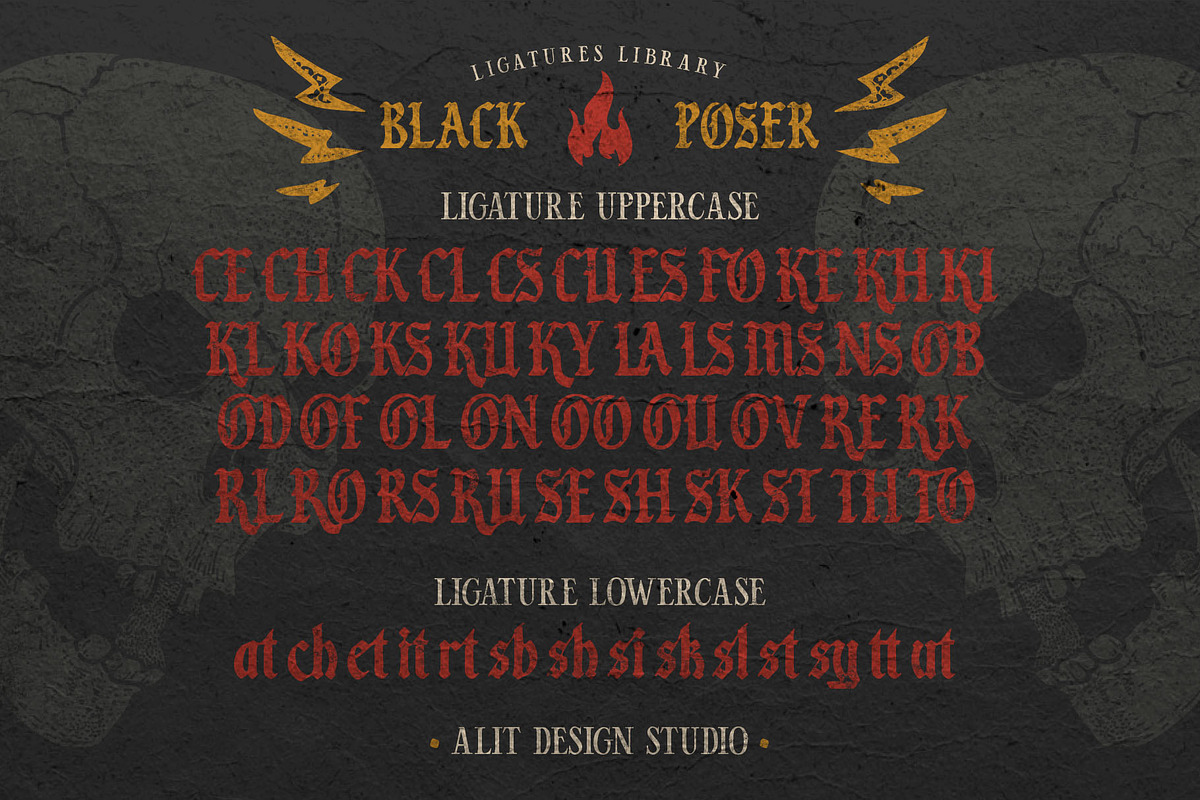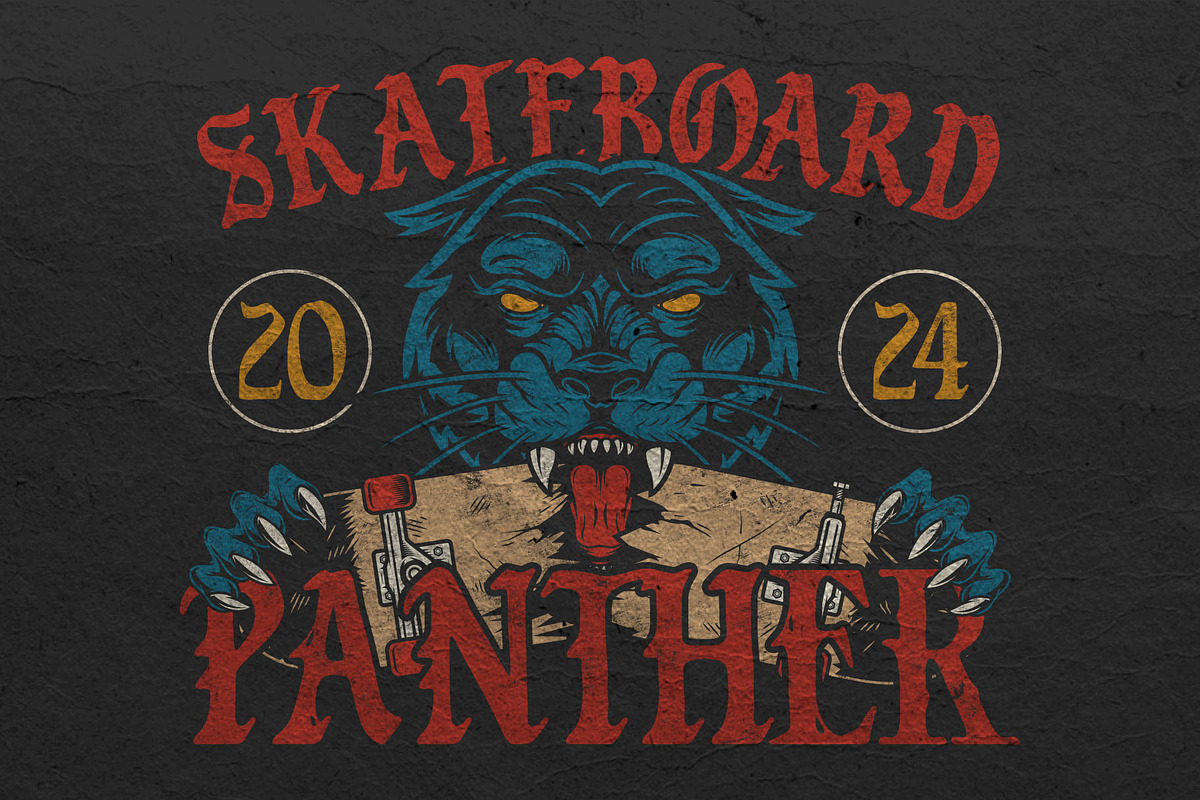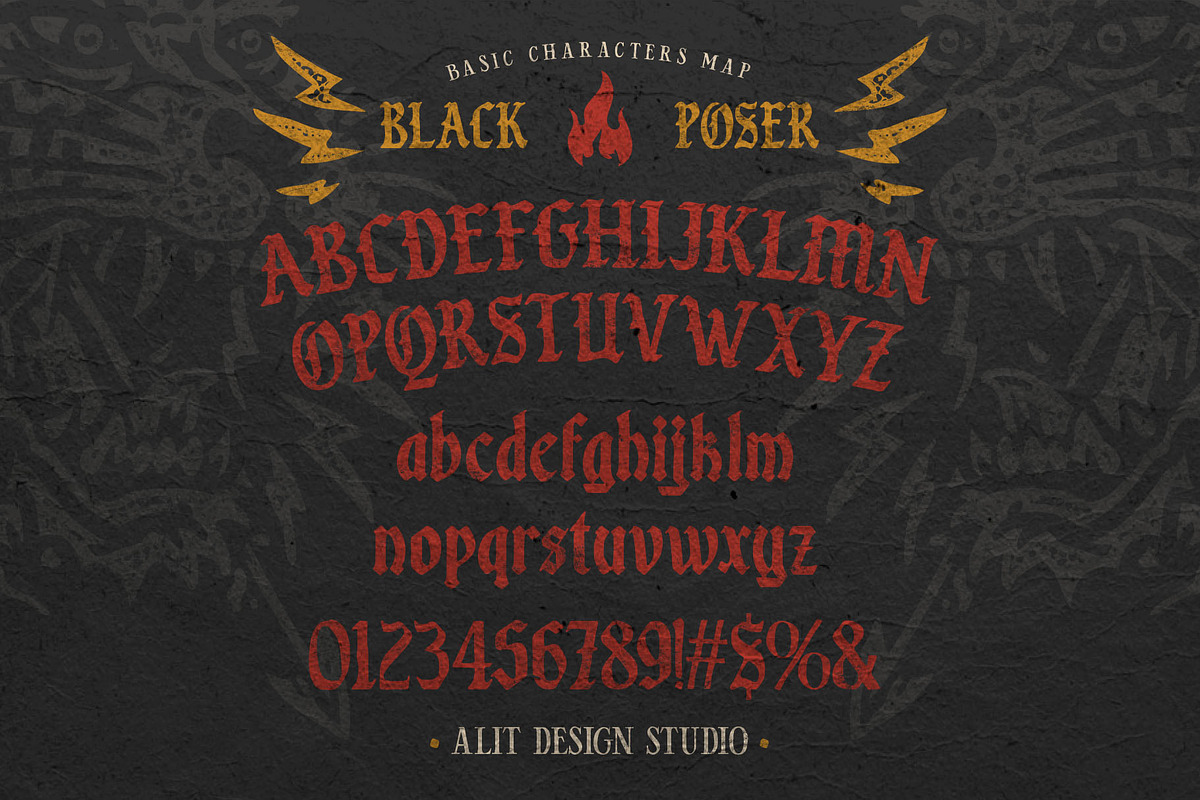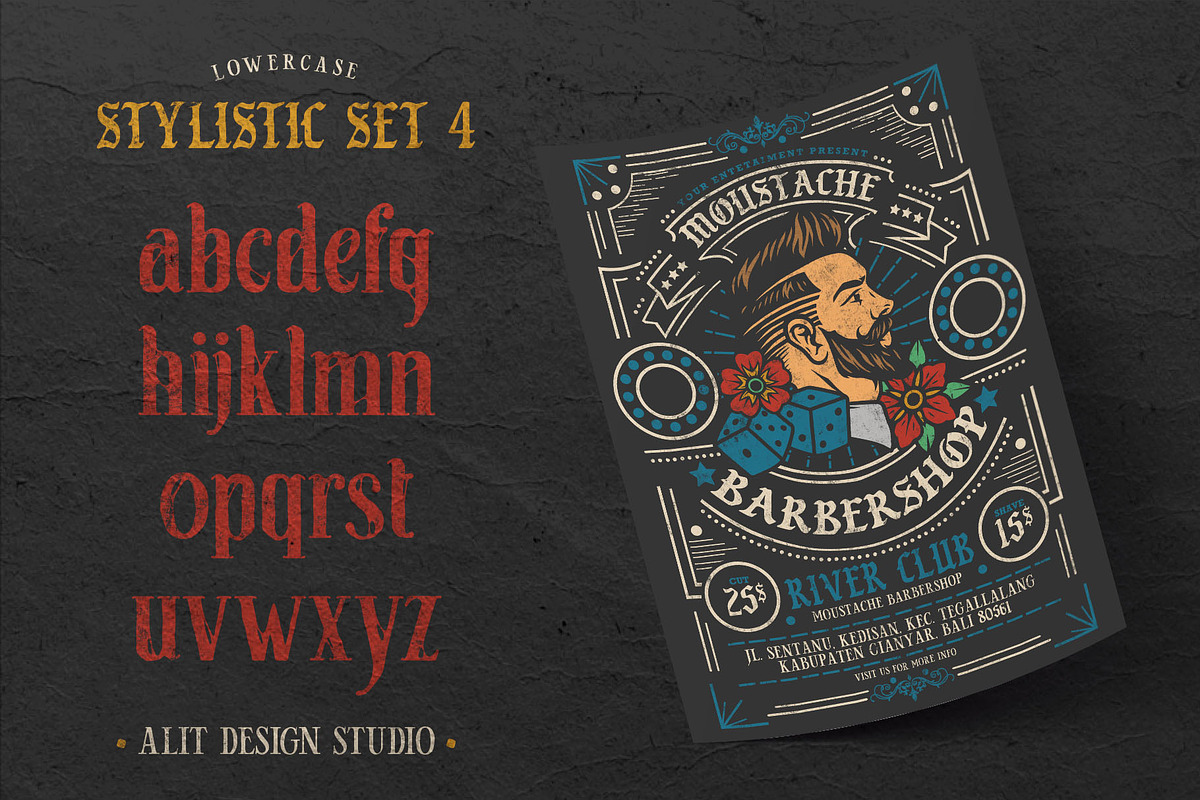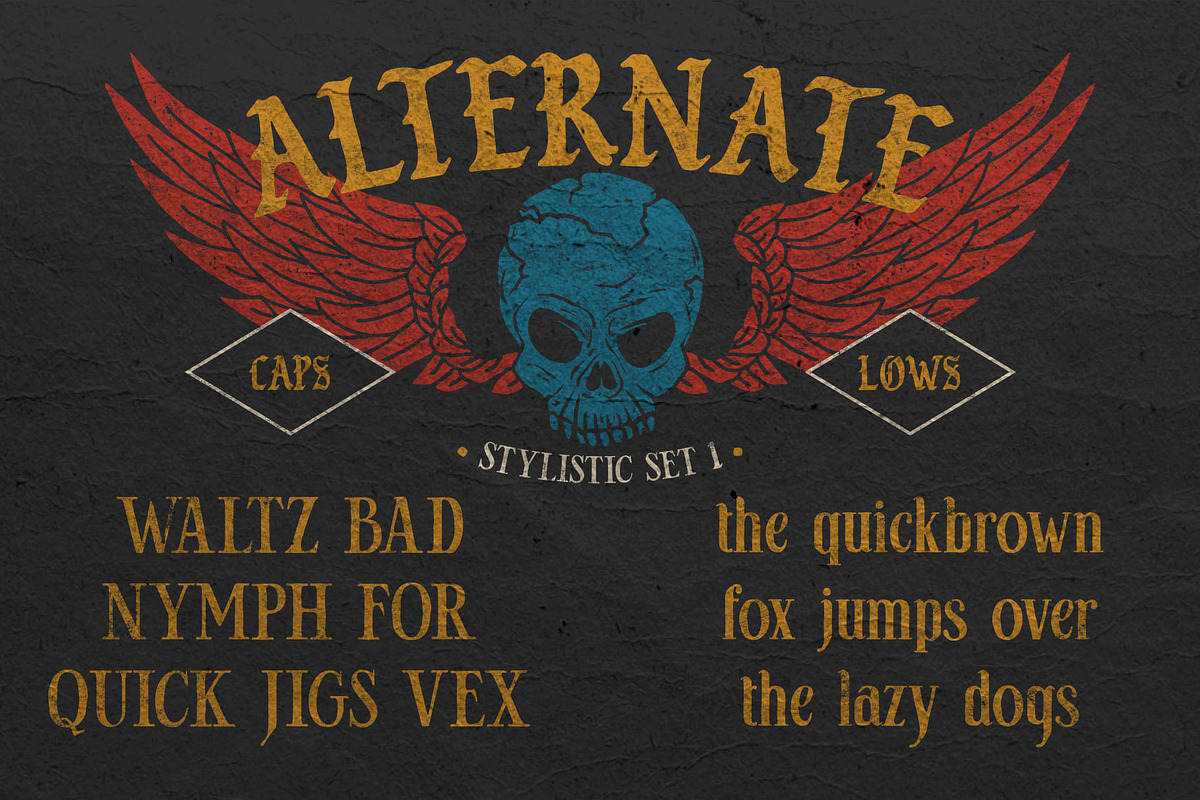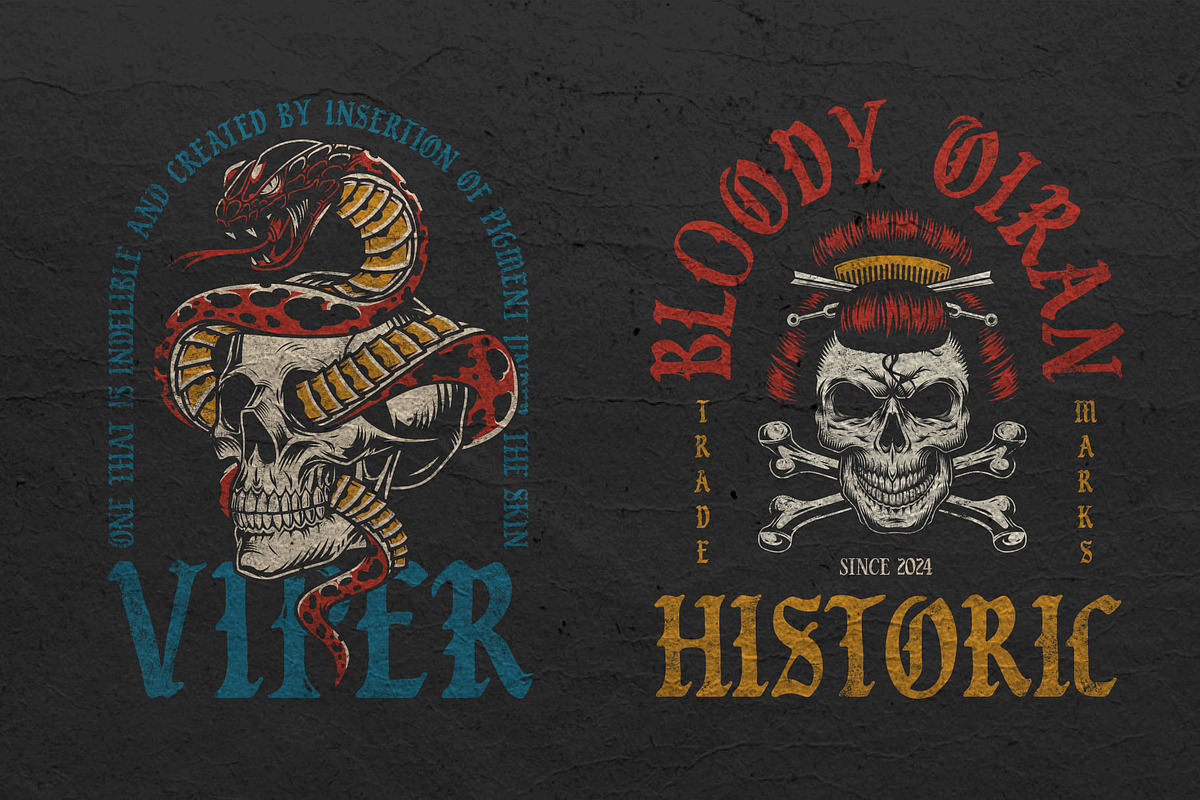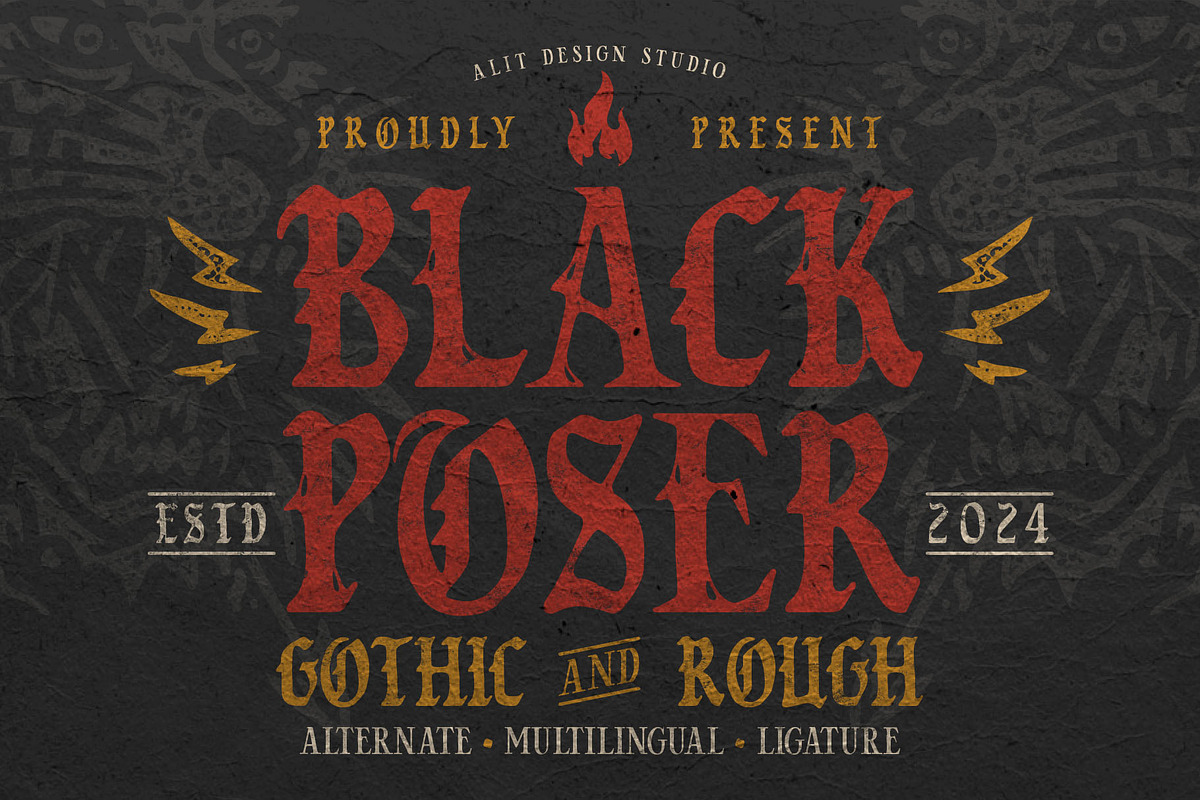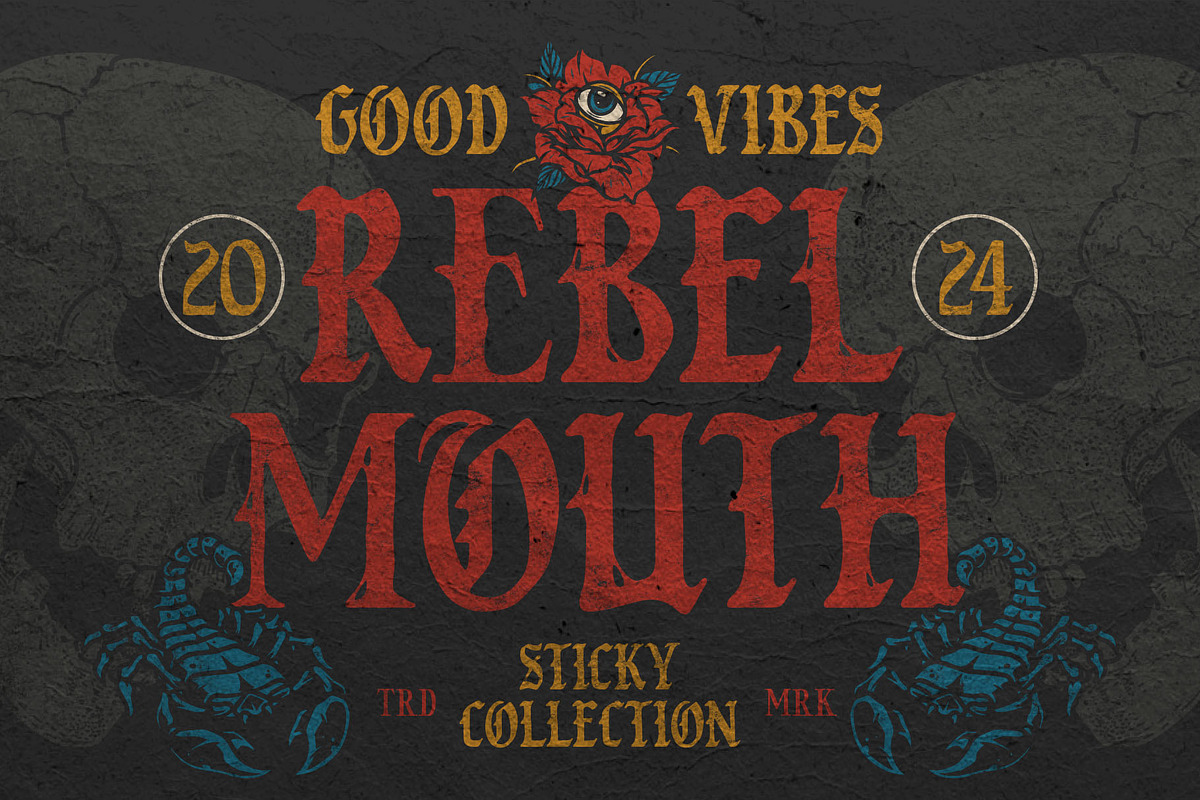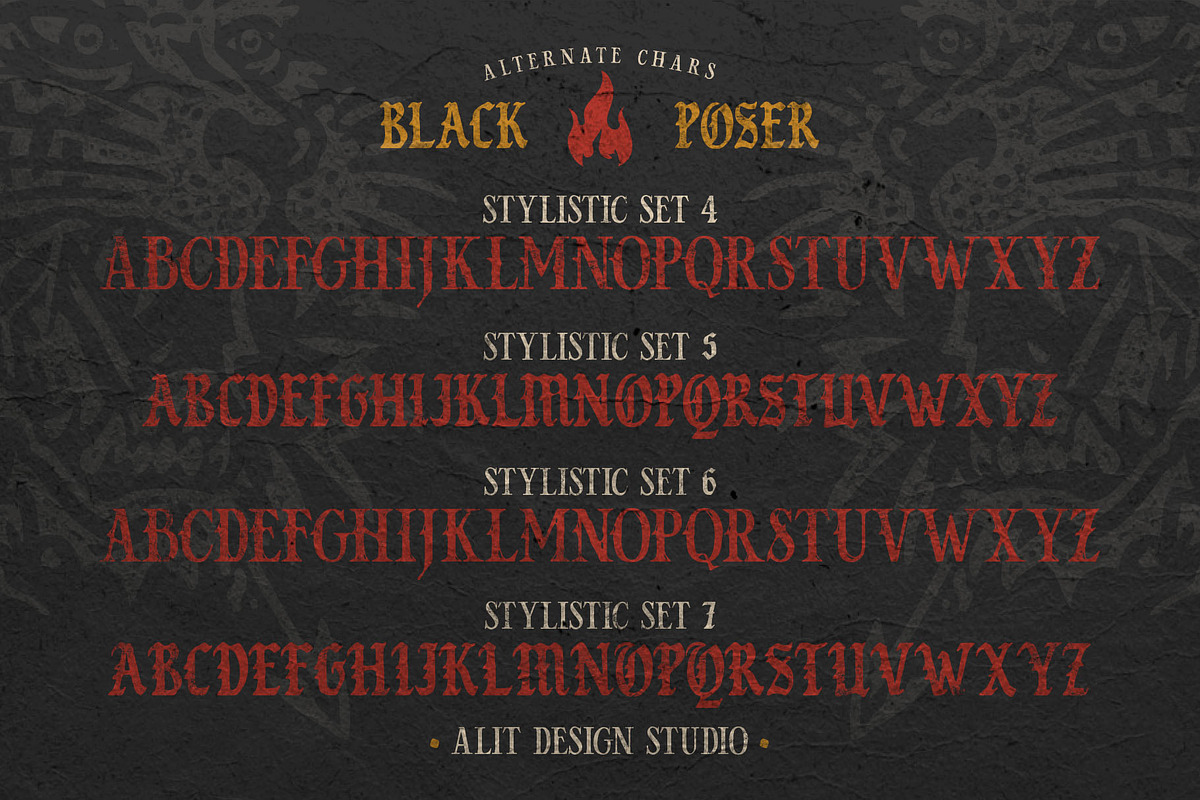
Black Poser Blackletter Typeface
The "Black Poser Blackletter Typeface" is a bold, vintage-inspired font that embodies the traditional essence of blackletter typefaces while adding a modern, rough edge. This typeface features 813 meticulously crafted glyphs, offering a wide range of characters and symbols for versatile design needs.
The font is characterized by its sharp, angular lines and intricate details, capturing the essence of medieval manuscripts with a touch of contemporary grittiness. It includes a variety of alternates, ligatures, and swashes, providing designers with creative freedom to enhance their typographic compositions.
Additionally, the "Black Poser" font is fully PUA encoded, making it easy to access all glyphs, including special characters, without the need for special software. It also supports multiple languages, ensuring broad usability for international projects.
Ideal for branding, posters, apparel design, and more, this blackletter typeface stands out with its bold, rebellious personality while maintaining the elegance of traditional calligraphy.